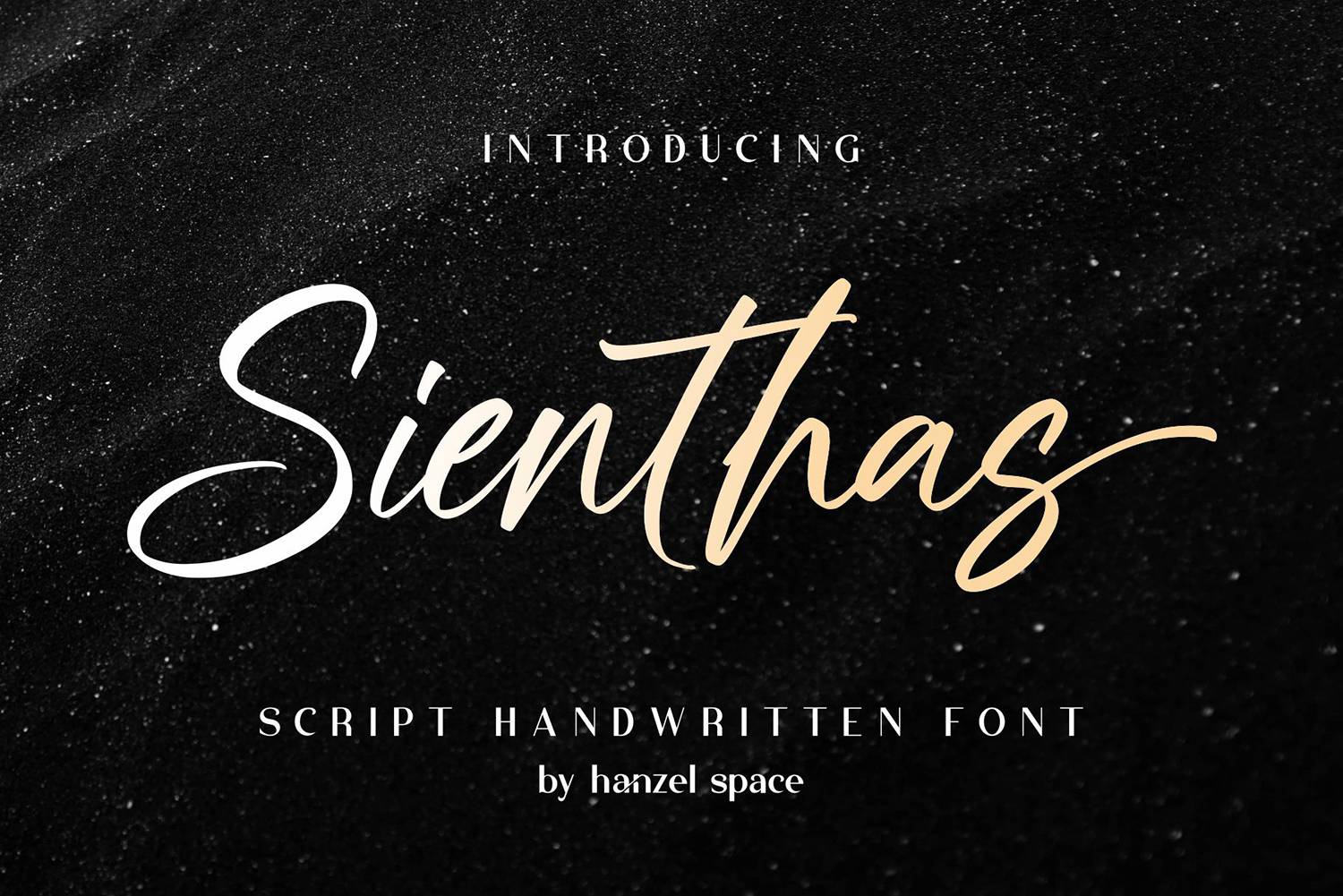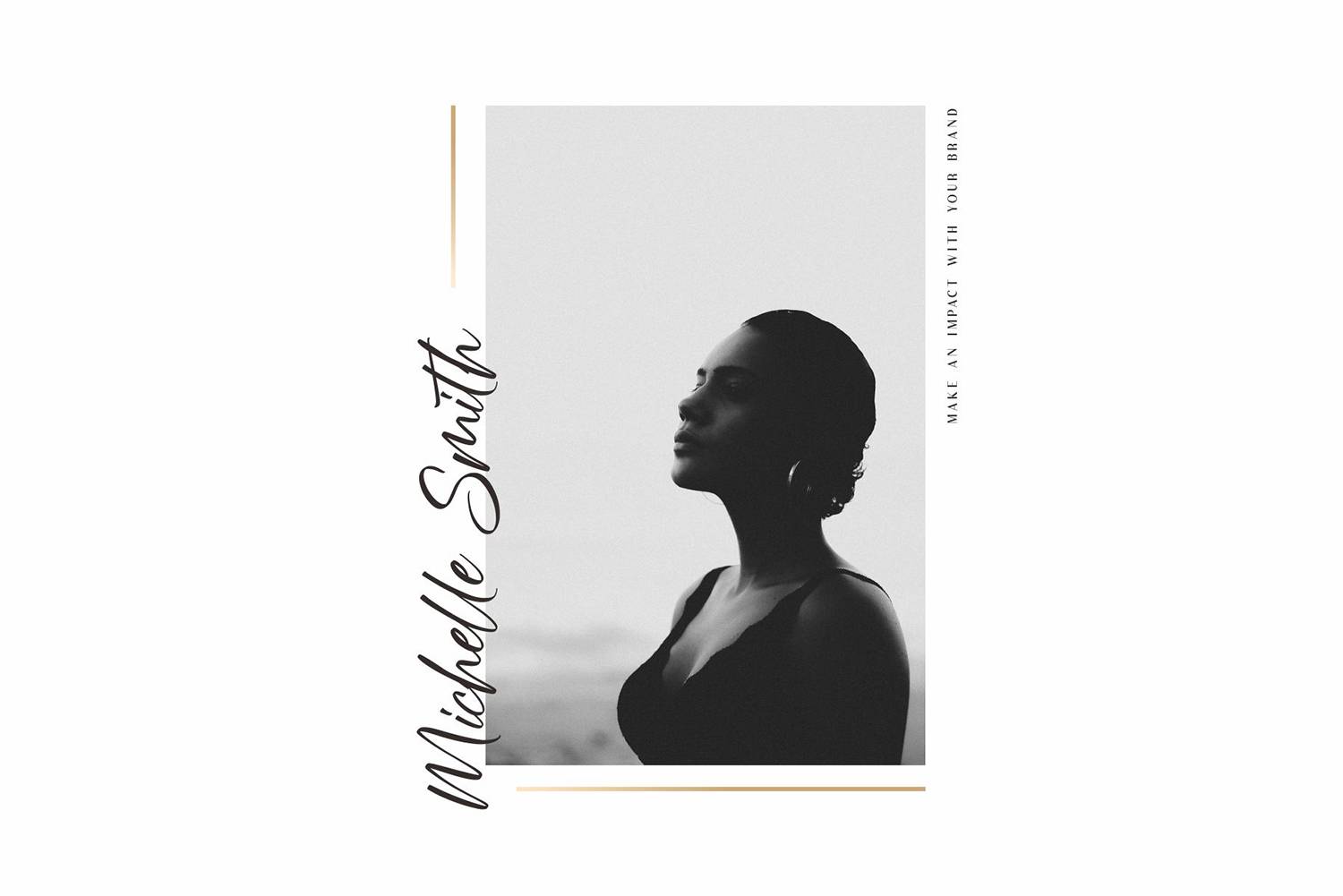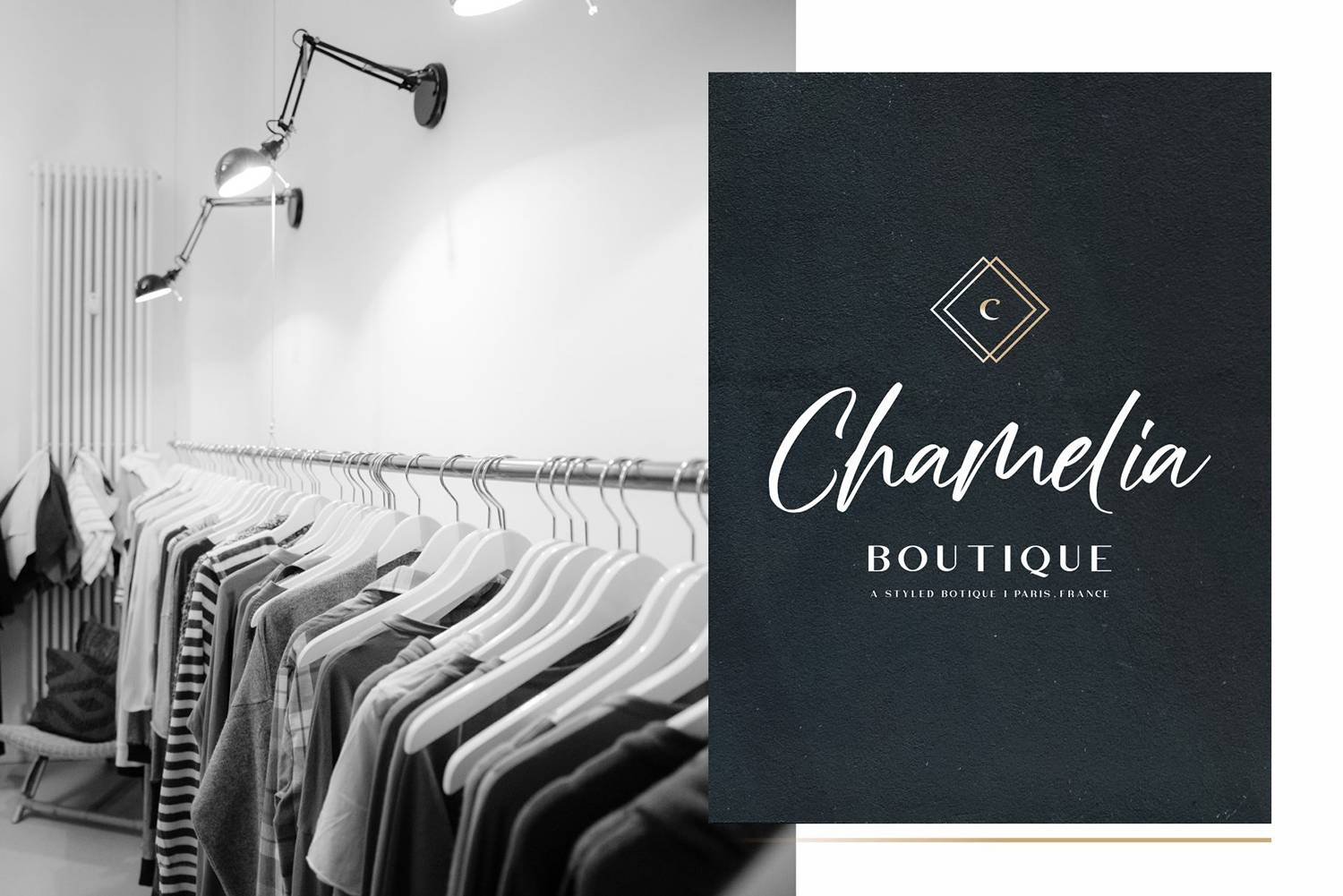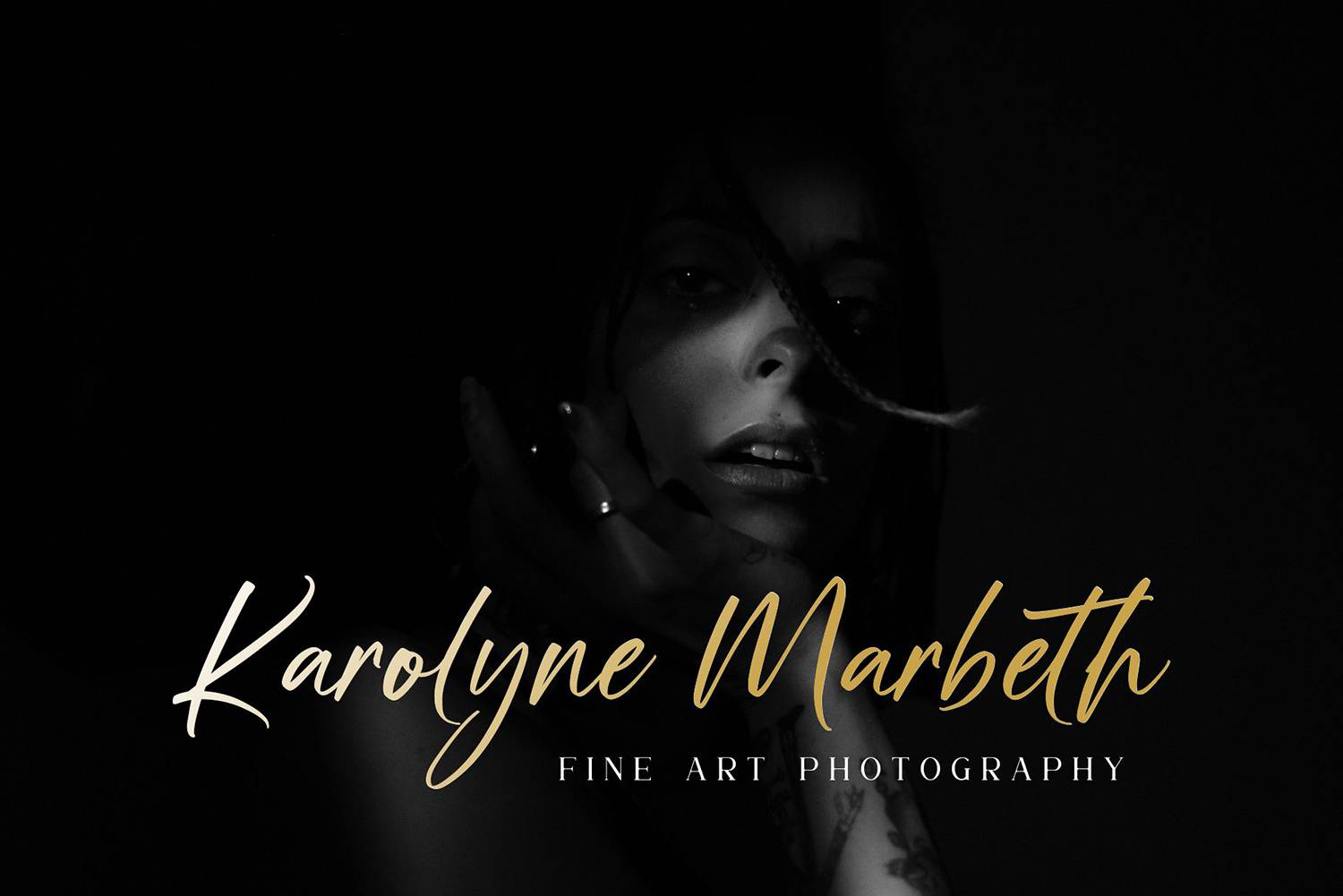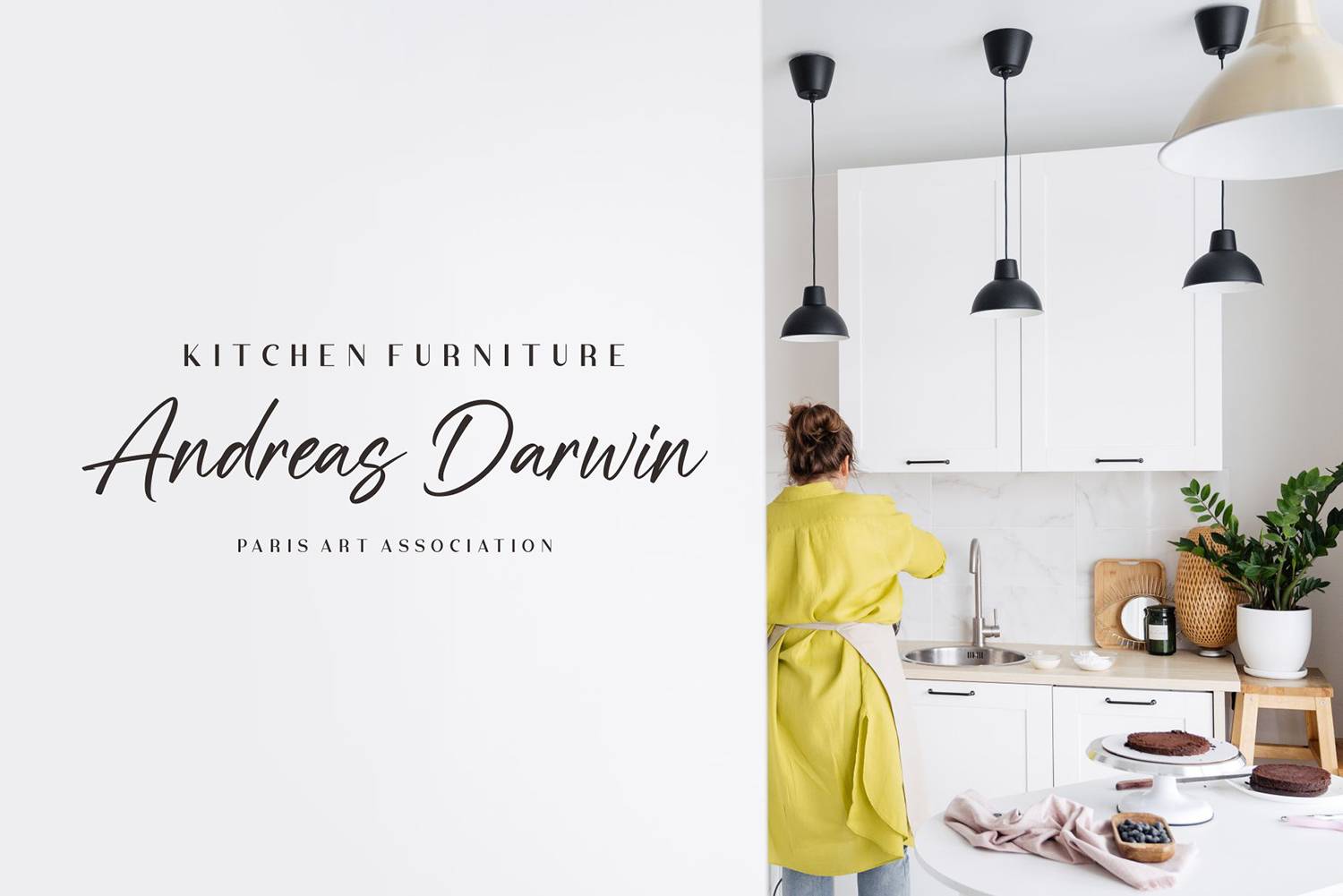
Sienthas is a graceful script font characterized by its elegant, flowing strokes that create a natural handwritten feel. Its slender, slightly condensed letterforms and smooth curves make it perfect for adding a personal, stylish touch to invitations, branding, and creative designs. With its refined and approachable look, Sienthas works beautifully in logos, headings, and decorative text where a touch of sophistication is desired.
Sienthas Font
About Sienthas Font
| Font family | Sienthas Font |
| Designer | Hanief Farandi |